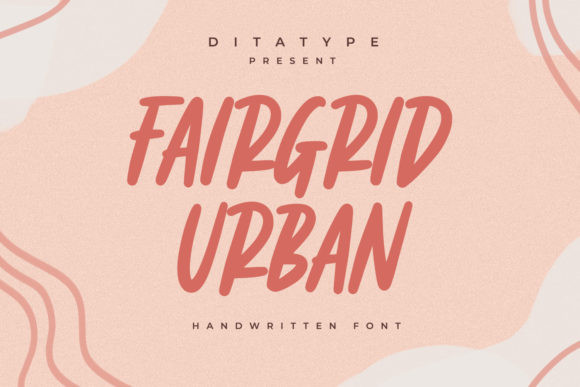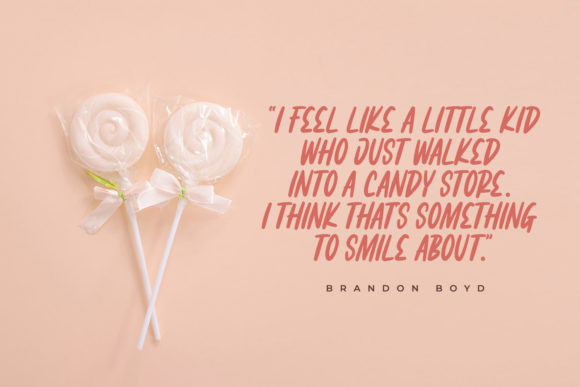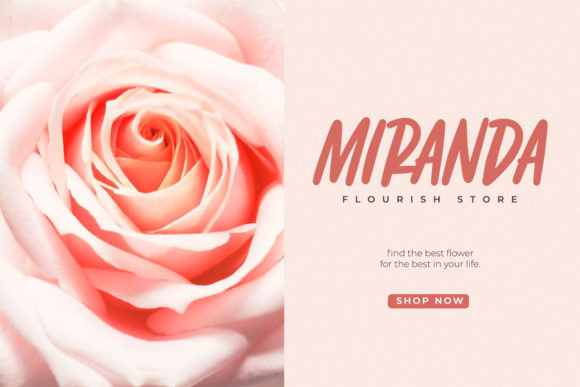
Fairgrid Urban Font
Fairgrid Urban embodies fun, quirkiness and authenticity. This enchanting handwritten font will turn any creative idea into a true standout.